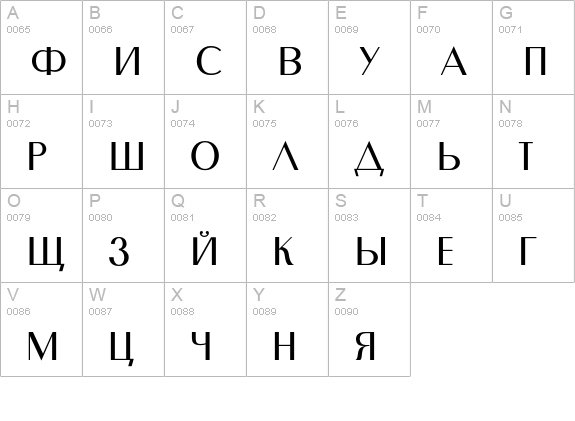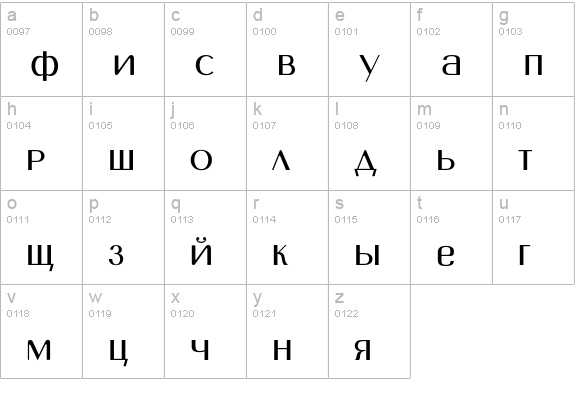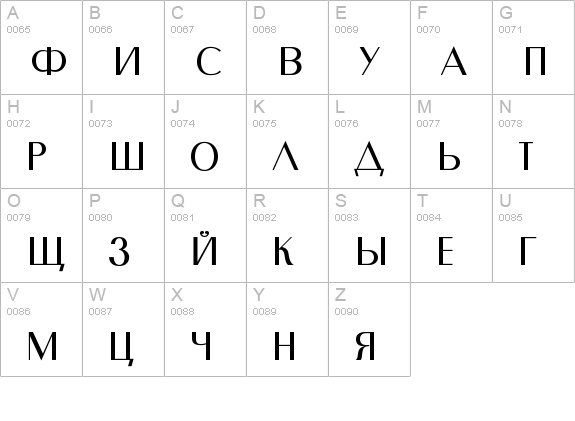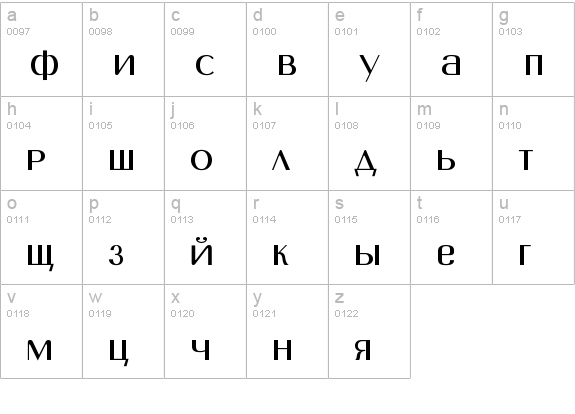
Murmansk Font Details
Below you can preview Murmansk in uppercase [A-Z], lowercase [a-z] and numbers [0-9]. You can also read the author's notes and license information before downloading.
Murmansk font is a versatile and elegant typeface that exudes sophistication and modernity. With its clean lines and stylish curves, this font is perfect for a wide range of design projects, from branding to editorial design. The Murmansk font is available for free download at FontsMarket.com, making it easily accessible to designers and creatives looking to elevate their work with a touch of elegance and professionalism. Whether you're designing a logo, creating a website, or working on a print project, the Murmansk font is sure to make a statement and leave a lasting impression.